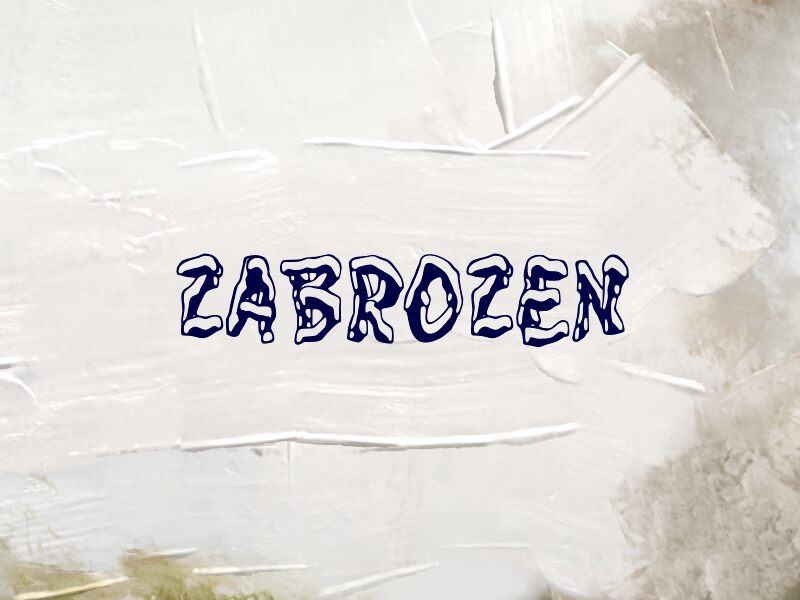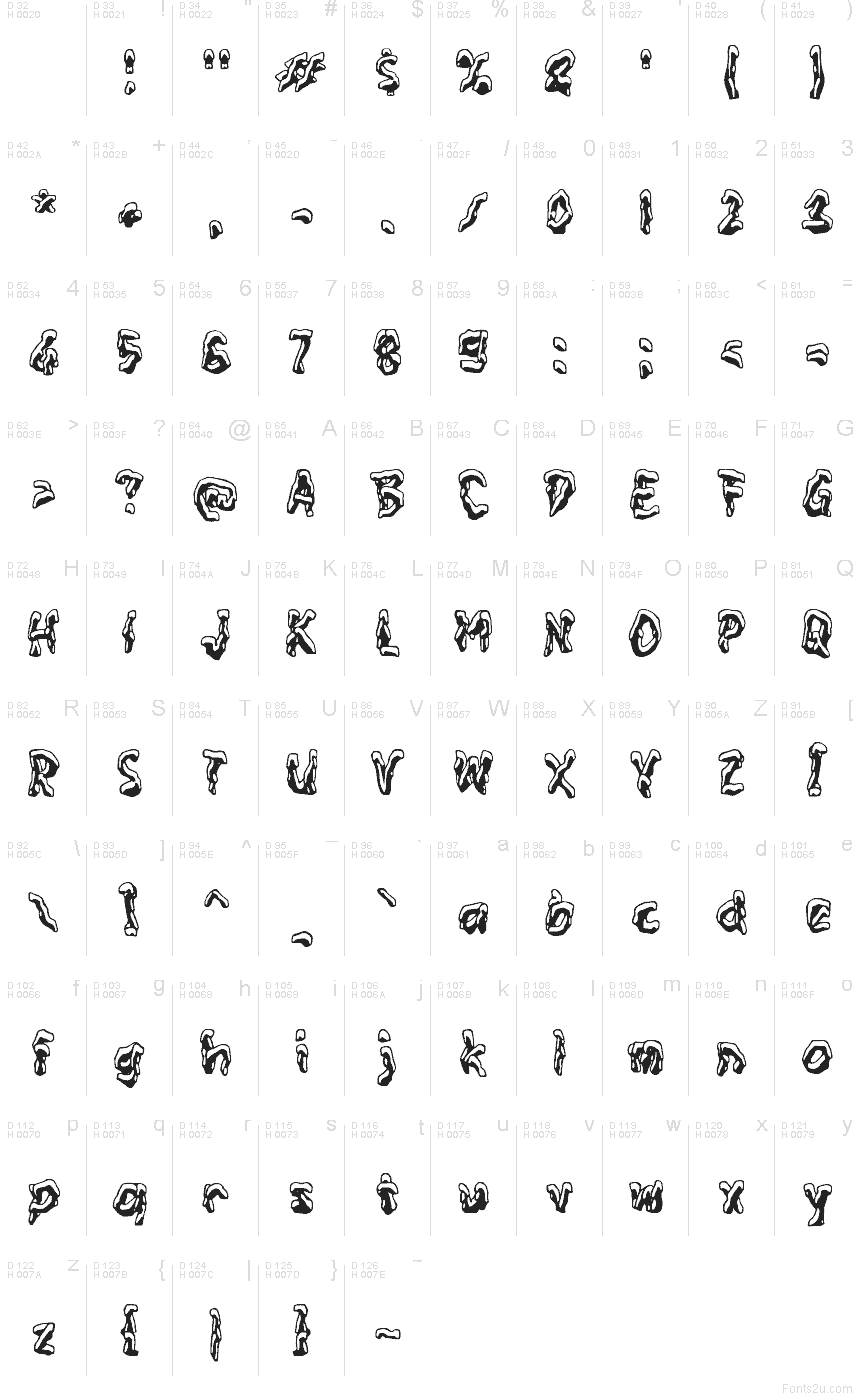
Zabrozen by Wep is a free horror-display font with swollen, melting caps that look carved from slime or soft bone. The letters wobble with thick outer edges and hollow, dripping interiors, giving the whole font a hand-drawn monster-poster feel rather than a neat decorative pattern.
It fits posters, game titles, zine covers, Halloween flyers, and band merch where the lettering needs to feel gooey and a little feral. As a free font, it also works well for short headlines, title cards, and monograms, because the chunky shapes and dangling cut-ins carry plenty of mood before you even add any imagery.
Zabrozen
ZABROZEN font presentation and specimen
ZABROZEN font character map
ZABROZEN font character map: Basic Latin, page 1
Glyphs in the ZABROZEN font — Basic Latin, page 1